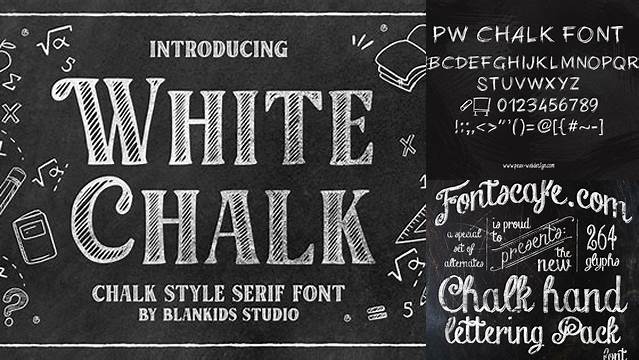
Hey guys! Are you looking to add a touch of rustic charm and handcrafted appeal to your designs? Look no further than the incredible world of chalk fonts! And guess what? DaFont is your ultimate treasure trove for finding amazing chalk fonts that you can download for free. In this article, we'll dive deep into the realm of chalk fonts, exploring their versatility, creative applications, and how you can snag them for your next project. So, grab your virtual chalk and let's get started!
Why Chalk Fonts are a Designer's Best Friend
Chalk fonts are more than just a trendy typeface; they're a statement. They evoke a sense of nostalgia, warmth, and authenticity, making them perfect for a wide range of design projects. Whether you're creating a menu board for a cozy cafe, designing invitations for a rustic wedding, or adding a playful touch to your website, chalk fonts can instantly elevate your work. The beauty of chalk fonts lies in their ability to mimic the look and feel of real chalk lettering. This gives your designs a handcrafted, personalized touch that sets them apart from generic, digital-looking fonts. They bring a sense of informality and approachability, making your message feel more genuine and relatable. Imagine a chalkboard sign outside a local bakery, advertising freshly baked goods with a charming chalk font. Or picture a greeting card with a heartfelt message written in a whimsical chalk font. These are just a few examples of how chalk fonts can add a unique and memorable touch to your designs. They work particularly well for projects that aim to convey a sense of authenticity, creativity, and down-to-earth appeal. Plus, with the vast selection available on DaFont, you're sure to find the perfect chalk font to match your specific style and project needs. Think about using them for posters, flyers, social media graphics, or even logos. The possibilities are endless! The key is to experiment and see how chalk fonts can enhance your overall design aesthetic. So, don't be afraid to get creative and explore the world of chalk fonts – you might just discover your new favorite typeface!
How to Choose the Perfect Chalk Font
Choosing the right chalk font can make or break your design. With so many options available, it's important to consider a few key factors to ensure that you select a font that perfectly complements your project. First and foremost, think about the overall tone and style of your design. Are you going for a rustic and vintage look, or something more modern and playful? A chalk font with rough edges and a textured appearance will be ideal for a vintage-inspired design, while a smoother and more stylized chalk font might be better suited for a contemporary project. Readability is another crucial factor to consider. While chalk fonts are known for their artistic flair, it's important to choose a font that is still easy to read, especially for body text or important headings. Avoid fonts with overly intricate details or extremely thin strokes, as these can be difficult to decipher, particularly at smaller sizes. Consider the context in which the font will be used. If you're designing a menu board for a restaurant, make sure the chalk font is clear and legible from a distance. If you're creating a website, choose a chalk font that is optimized for screen display. Experiment with different chalk fonts and see how they look with your chosen color palette and other design elements. Some chalk fonts may work better with certain colors or backgrounds than others. Don't be afraid to try different combinations until you find the perfect balance. Pay attention to the kerning and letter spacing of the chalk font. Kerning refers to the space between individual letters, while letter spacing refers to the overall space between all letters in a word or phrase. Adjusting these settings can significantly impact the readability and visual appeal of your chalk font. By carefully considering these factors, you can choose a chalk font that not only looks great but also effectively communicates your message and enhances the overall impact of your design.
Unleashing Your Creativity: Chalk Font Applications
The versatility of chalk fonts extends far beyond menu boards and wedding invitations. These fonts can be used in a wide array of creative projects, adding a touch of personality and handcrafted charm to everything they touch. One popular application is in branding and logo design. A chalk font logo can convey a sense of authenticity, creativity, and approachability, making it ideal for businesses that want to project a friendly and down-to-earth image. Chalk fonts are also widely used in social media graphics, adding a personal and engaging touch to posts, stories, and advertisements. They can help your content stand out from the crowd and capture the attention of your audience. In the realm of education, chalk fonts can be used to create visually appealing and engaging learning materials, such as worksheets, presentations, and classroom decorations. They can make learning more fun and interactive for students of all ages. Chalk fonts are also a great choice for creating personalized gifts and keepsakes, such as mugs, t-shirts, and framed prints. They can add a heartfelt and handmade touch to any present. If you're a DIY enthusiast, consider using chalk fonts for your next crafting project. You can use them to create stencils, labels, and decorative signs for your home. They can add a touch of rustic charm to any room. For event planners, chalk fonts can be used to create eye-catching signage, invitations, and table decorations. They can help set the tone for a memorable and stylish event. No matter what your creative passion, chalk fonts offer a unique and versatile way to express yourself and add a touch of personality to your projects. So, go ahead and experiment with different chalk fonts and see where your imagination takes you!
Tips and Tricks for Working with Chalk Fonts
Even with the perfect chalk font in hand, there are a few tips and tricks that can help you get the most out of your design. When working with chalk fonts, it's important to pay attention to contrast. Since chalk fonts often have a textured or distressed appearance, they can sometimes get lost on busy backgrounds. To ensure readability, try using a solid, contrasting background color or adding a subtle shadow or outline to the font. Experiment with different blending modes in your design software to create unique and interesting effects with chalk fonts. Blending modes like multiply, overlay, and screen can alter the way the font interacts with the background, creating a variety of visual textures and effects. Don't be afraid to add hand-drawn elements to complement your chalk font. Doodles, arrows, and other hand-drawn embellishments can enhance the handcrafted feel of your design and add a personal touch. Consider using a chalk font in combination with other font styles. Pairing a chalk font with a clean and modern sans-serif font can create a visually appealing contrast and add balance to your design. Pay attention to the alignment of your text when using chalk fonts. Due to their irregular shapes and textured appearance, chalk fonts can sometimes appear slightly misaligned. Use your design software's alignment tools to ensure that your text is properly aligned and visually balanced. Remember, the key to working with chalk fonts is to experiment and have fun. Don't be afraid to try new things and push the boundaries of your creativity. With a little practice and experimentation, you can master the art of using chalk fonts to create stunning and impactful designs.